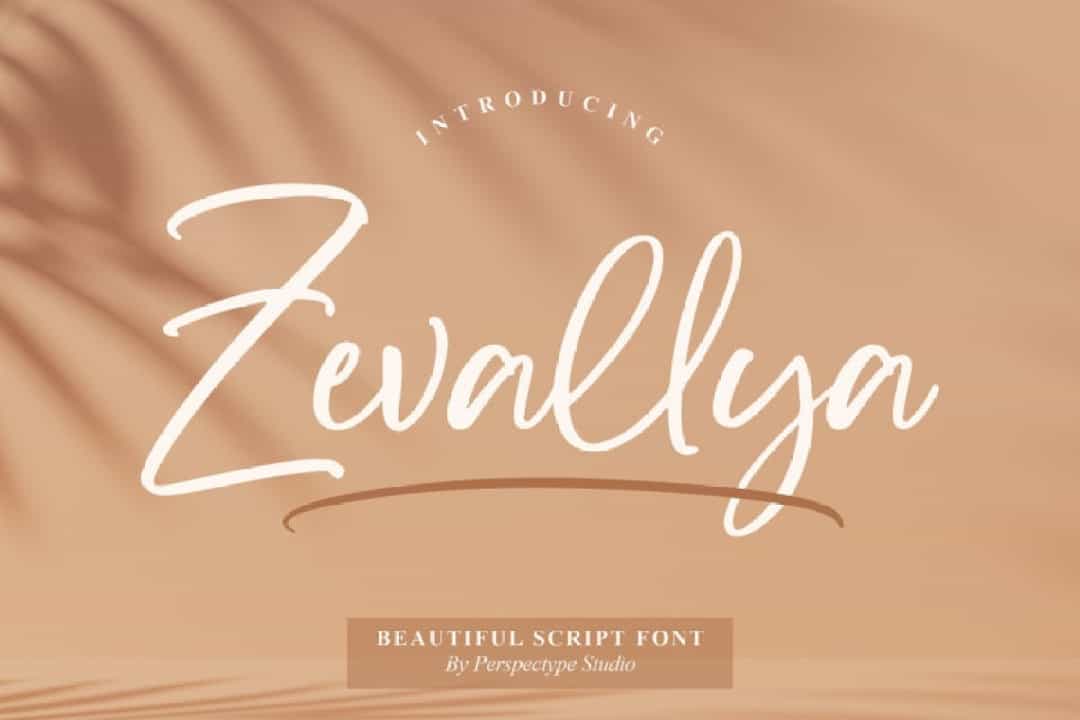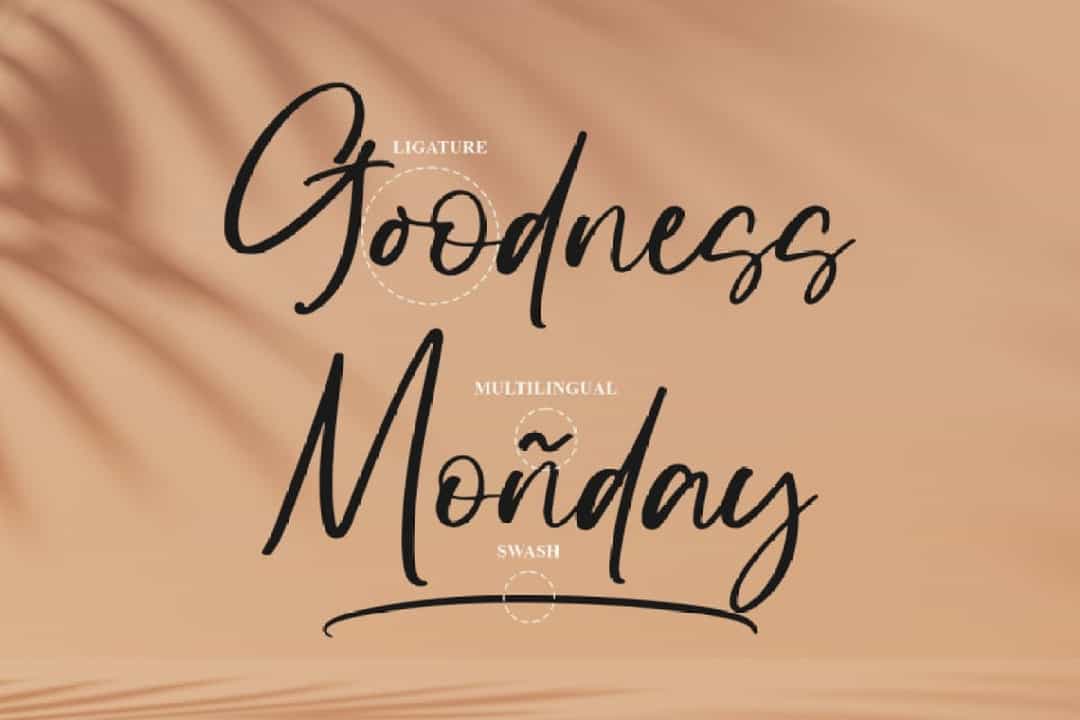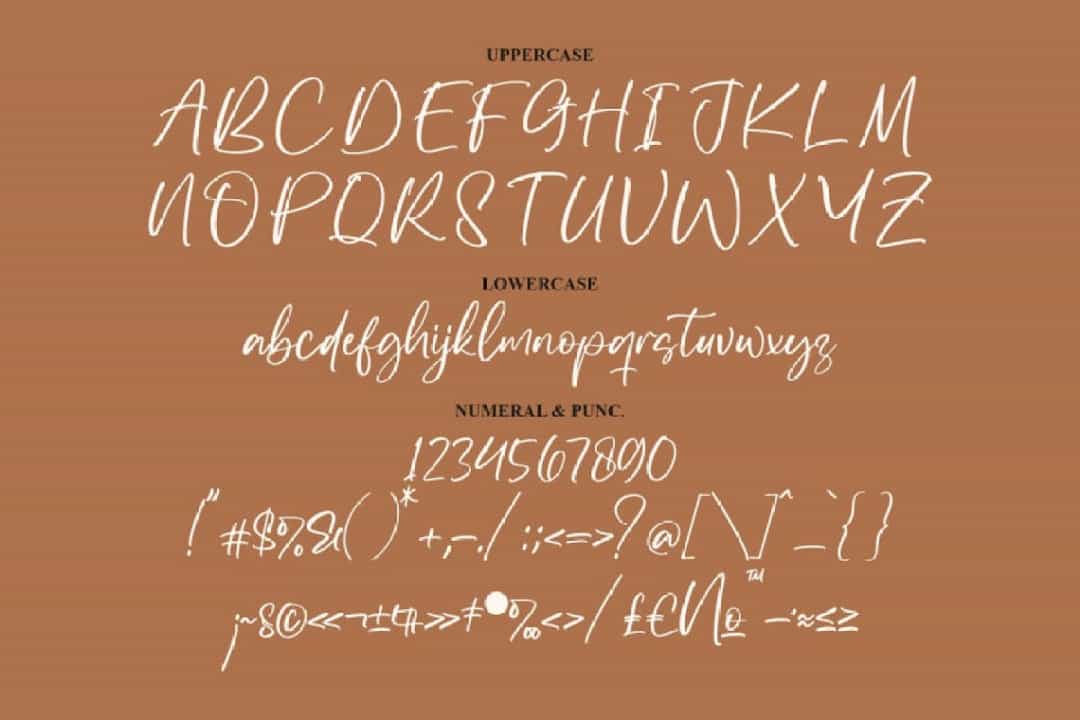
Discover Zevallya Font, part of the Brush Handwritten collection—a versatile and unique font perfect for adding a personal touch to your projects. Download it for free and enjoy crafting designs with style, from invitations to social media posts. This font is available exclusively for personal use, giving you the freedom to create without limits. Unlock your creativity with Zevallya Font today!
Perspectype Studio’s Zevallya Lovely Handwritten Script Font is perfect for use in logos, branding and homeware designs packaging products with mugs as well as shopping bags with quotes shopping bags, posters, T-shirts, book covers, greeting cards, invitation cards, labels, watermarks, photography, special occasions, special projects that require script flair!